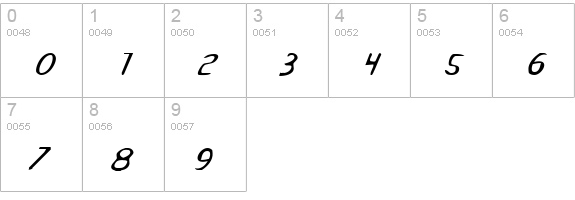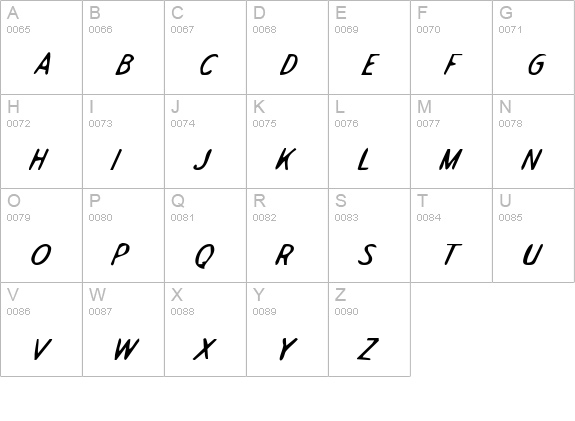
Drafting Table Expanded Italic is a distinctive, extended-width, italic variant in the Drafting typeface family \xE2\x80\x94 well suited to design and typography projects.
Drafting Table Expanded Italic font is a modern and stylish typeface that brings a touch of elegance to your designs. Its sleek and sophisticated appearance makes it perfect for projects that require a refined and professional look. The italicized version of Drafting Table Expanded adds a dynamic and dynamic touch to your text, making it stand out and draw attention. This font is highly versatile and can be used for a wide range of design purposes, from branding to editorial design, signage, and more. Its unique style and bold presence make it a great choice for projects that require a touch of flair and creativity. The best part about Drafting Table Expanded Italic font is that it is available for free download at FontsMarket.com. This means that you can easily access this stunning typeface and use it in your projects without any cost. Don't miss out on the opportunity to enhance your designs with this beautiful font today!